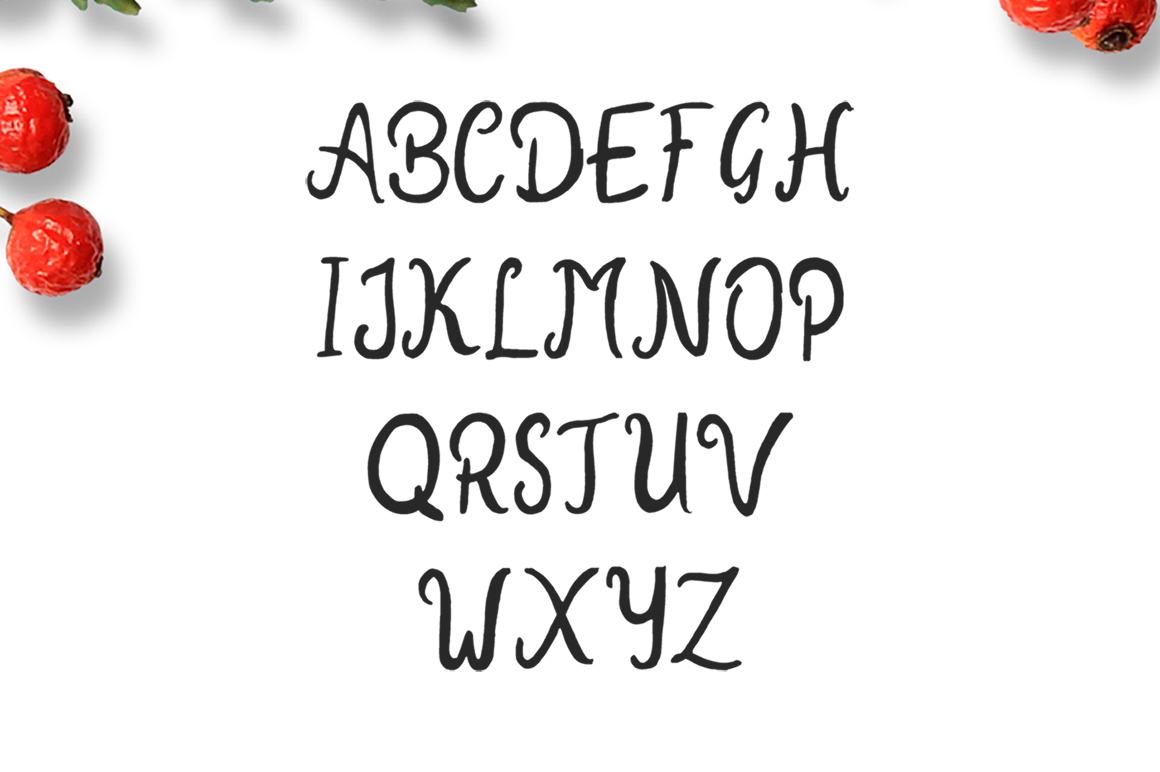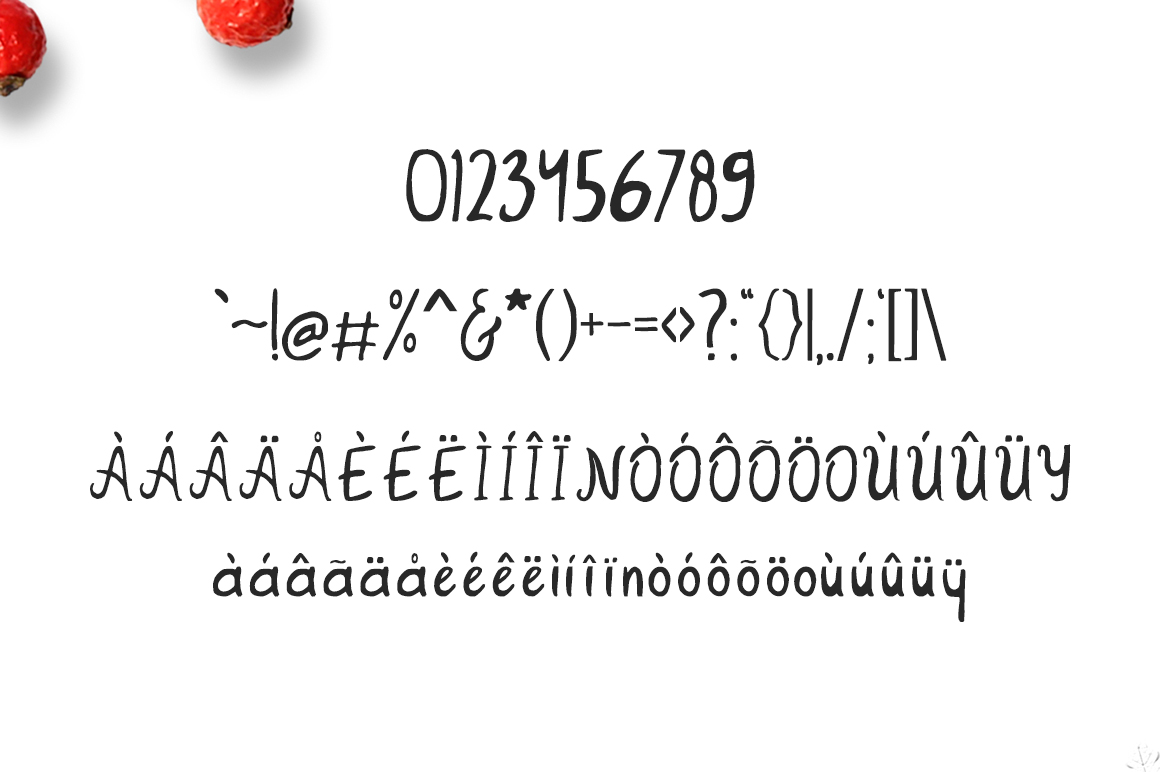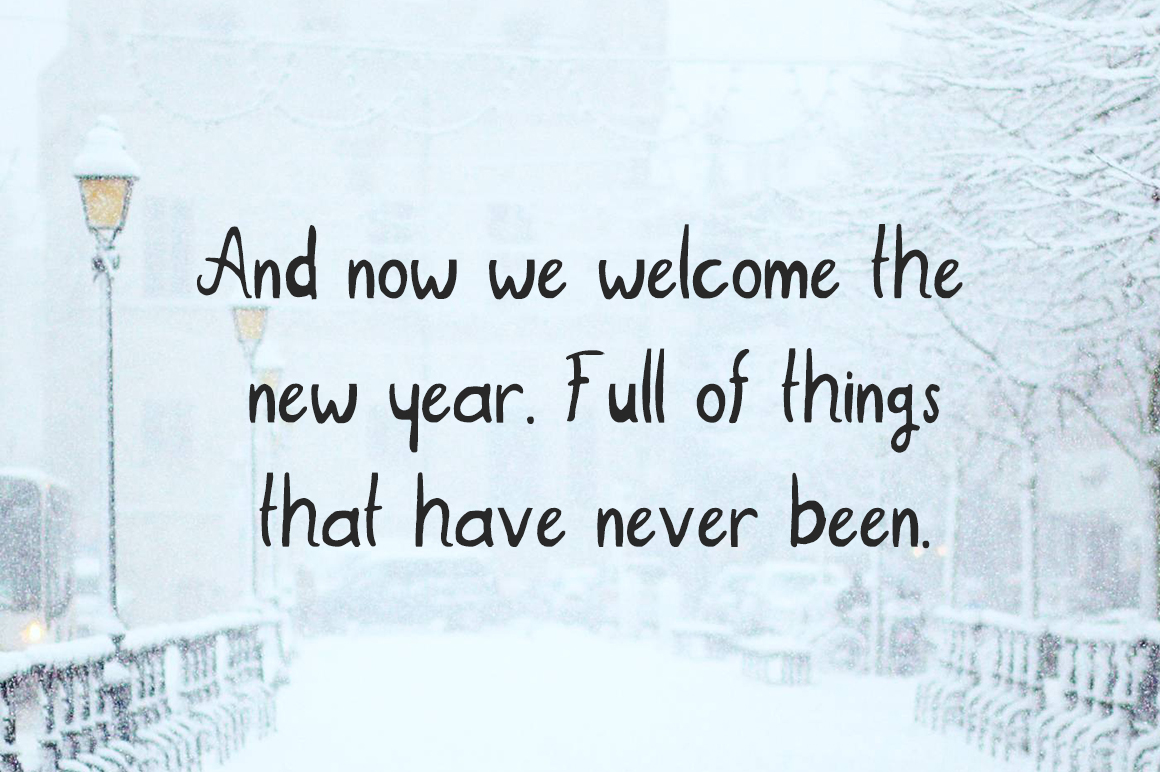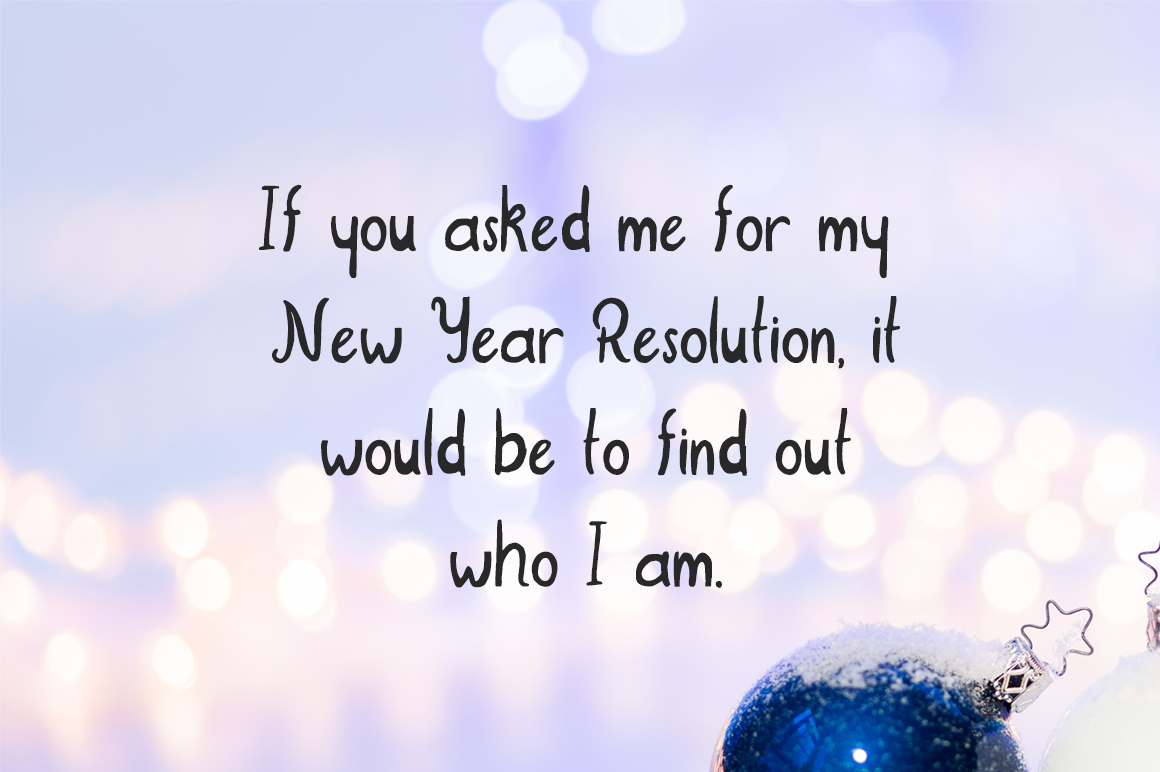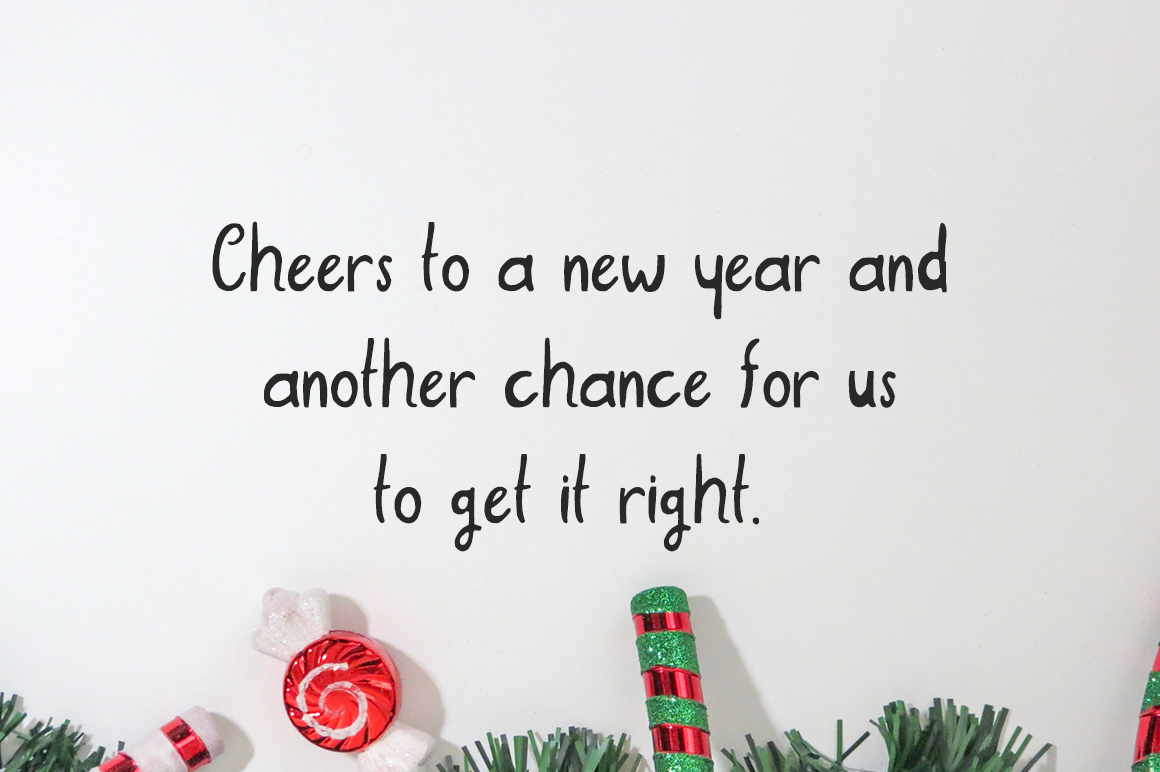
New Year 2018 Font
About New Year 2018 Font
New Year 2018 is a handwritten brush font crafted with love. This font is so perfectly imperfect, giving a personal feel to your designs and creative projects.